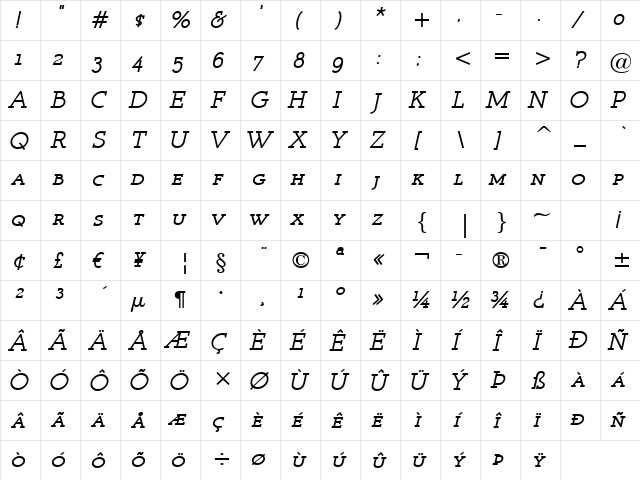
Register Serif BTN SC BoldOblique
Design Context for Register Serif BTN SC Typeface
Register Serif BTN SC brings classic typographic sensibility to the table — its serifs and measured letterforms reflect centuries of print heritage. Its italic angle brings a sense of urgency and motion to the letterforms. The heavy weight commands attention and anchors typographic hierarchies.